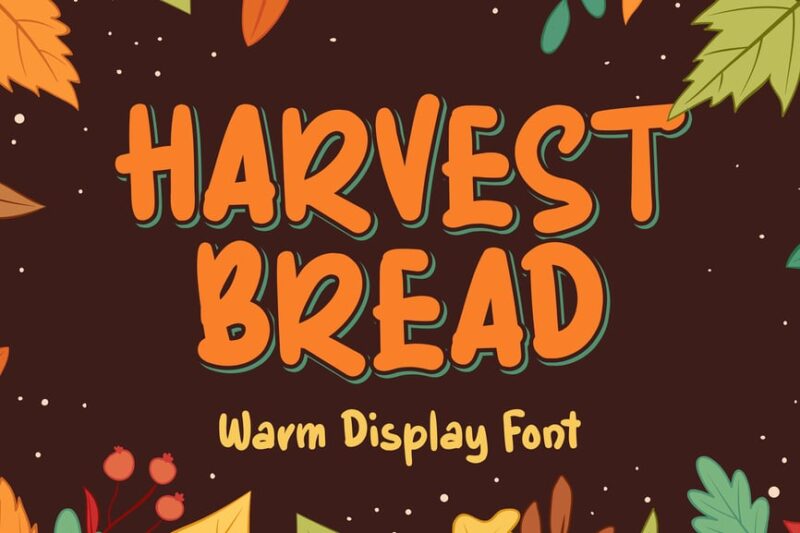
The leaves are turning, the air is crisp, and somewhere a turkey is nervously checking the calendar. Yes, Thanksgiving season is upon us! And while you’re busy planning the perfect feast and dodging questions about your love life from Aunt Martha, there’s another feast you should be preparing – a typographic one.
Thanksgiving fonts are the unsung heroes of autumn design. They’re the secret ingredient that transforms ordinary holiday marketing into something that makes people stop scrolling and start craving pumpkin pie. From rustic farmhouse vibes to elegant dinner party sophistication, the right Thanksgiving font can set the entire mood for your seasonal designs.
But here’s the thing – not all autumn fonts are created equal. Some scream “Halloween leftover” while others whisper “sophisticated harvest celebration.” The difference between amateur hour and professional polish often comes down to one crucial element: typography.
In this comprehensive guide, we’ll carve through the clutter to bring you the most delectable Thanksgiving fonts of 2026. Whether you’re designing restaurant menus, family reunion invitations, or branded marketing materials, these fonts will help you capture that perfect blend of warmth, gratitude, and seasonal charm.
So grab your favorite fall beverage (pumpkin spice latte, anyone?), and let’s dive into this cornucopia of Thanksgiving typography!
The Most “Thankful” Thanksgiving Fonts of 2026
Happy Thanksgiving Font
This festive Thanksgiving font combines script and handwritten styles, perfect for creating warm, inviting holiday designs. Its versatility makes it ideal for Thanksgiving cards, invitations, and social media graphics.
Joyful Turkey
Joyful Turkey is a playful display font that captures the spirit of Thanksgiving. This decorative typeface features fun, turkey-inspired characters that add a whimsical touch to holiday projects.
Hello Thankies
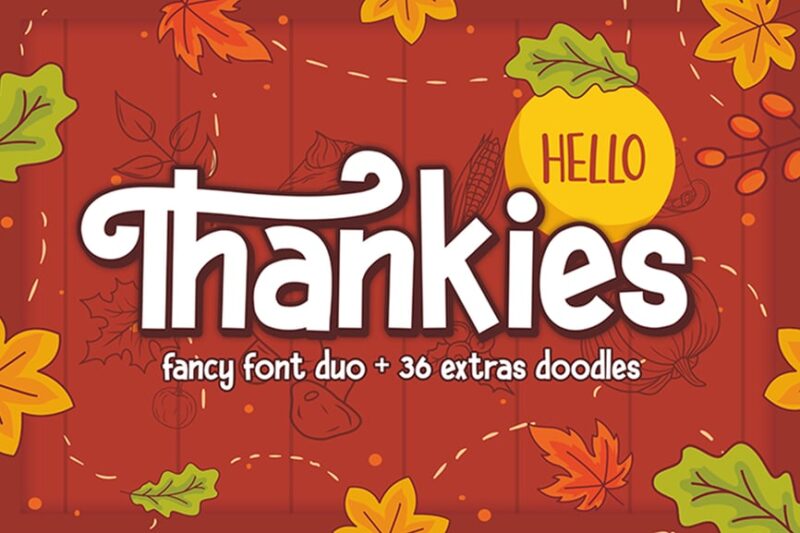
Hello Thankies is a charming decorative font that combines display and sans-serif elements. Its unique design makes it an excellent choice for Thanksgiving-themed headers, logos, and social media posts.
Thanks Gratitude
This Thanksgiving font blends script and handwritten styles with a college and typewriter aesthetic. Thanks Gratitude is perfect for creating heartfelt holiday messages and rustic Thanksgiving designs.
Thankful Sunday Font Duo
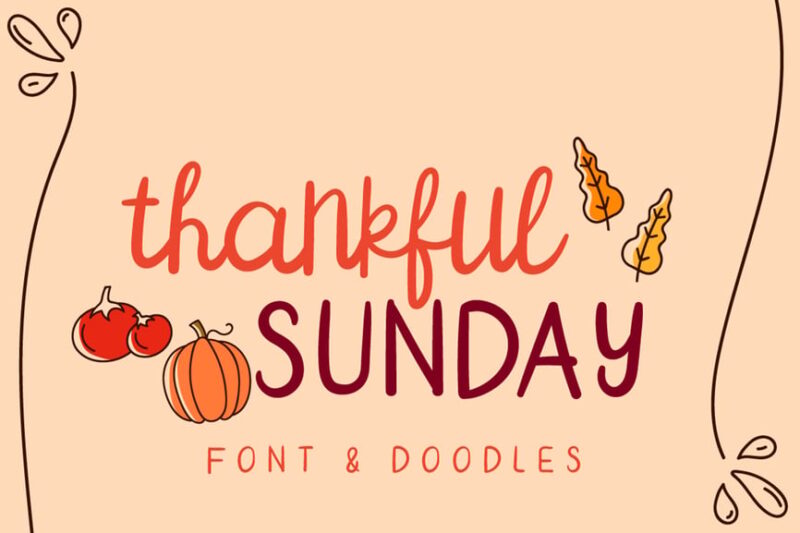
Thankful Sunday is a versatile font duo featuring script, handwritten, and decorative styles. This Thanksgiving-inspired typeface pair offers designers flexibility for creating cohesive holiday branding and graphics.
Gobbie Gobble
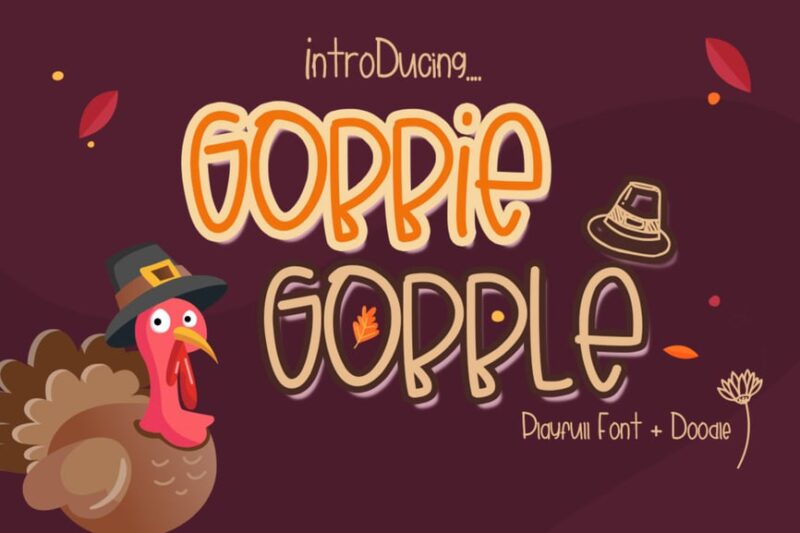
Gobbie Gobble is a playful font that combines script, handwritten, sans-serif, and decorative styles. This Thanksgiving-themed typeface is ideal for food-related designs and holiday logos.
Forever Grateful Font
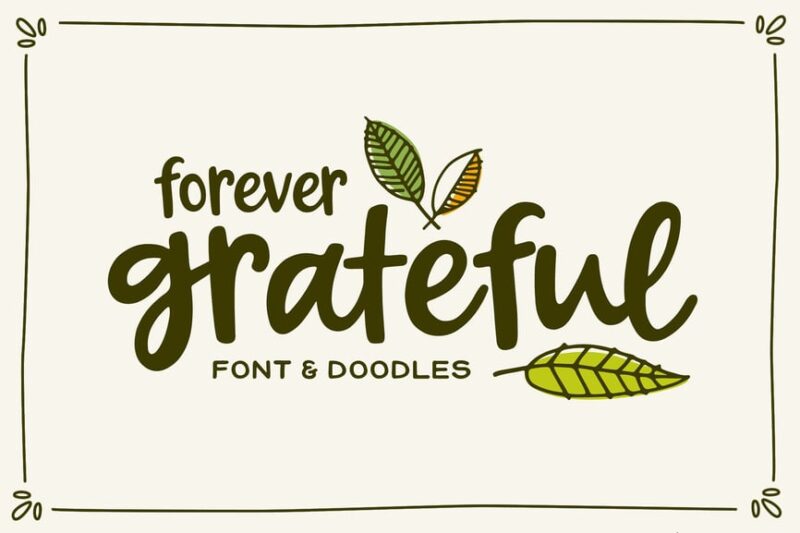
Forever Grateful is a beautiful script font with hand-drawn symbols, perfect for expressing gratitude during Thanksgiving. Its elegant design works well for fall-themed invitations and holiday cards.
Thanksgiving Font
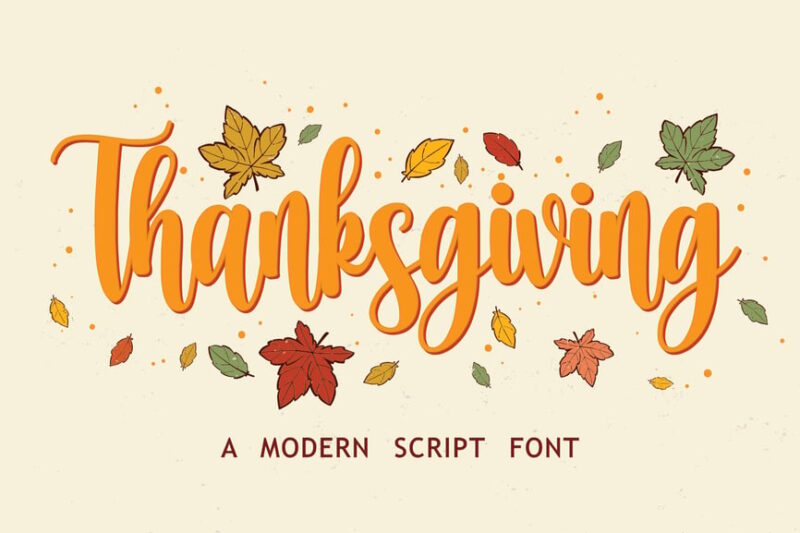
This versatile Thanksgiving font features script and handwritten styles suitable for both fall and Christmas designs. Its adaptability makes it a valuable addition to any holiday design toolkit.
Thanksgiving Joy
Thanksgiving Joy is a collection of fun, decorative fonts perfect for creating playful holiday designs. This assortment of Thanksgiving fonts offers variety for all your festive graphic needs.
Thanks Grateful
Thanks Grateful is a heartwarming Thanksgiving font featuring script and handwritten styles. This typeface is ideal for creating sincere thank-you notes and expressive holiday graphics.
Holiday Brother
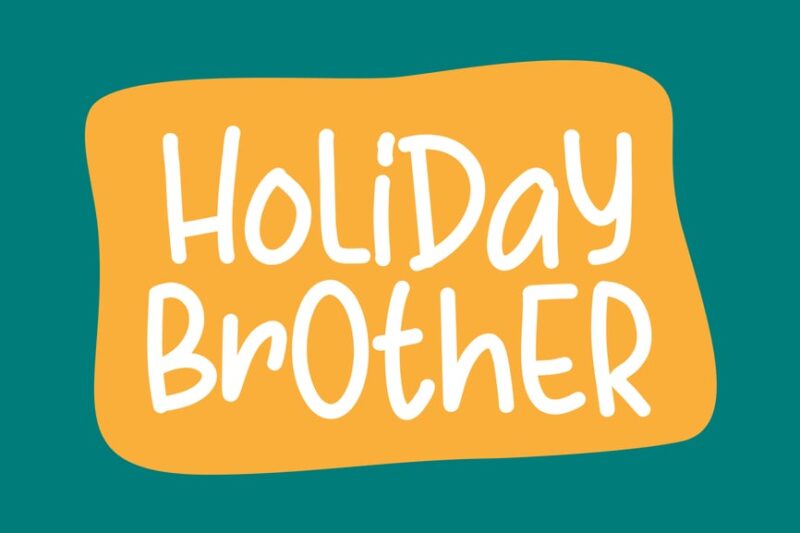
Holiday Brother is a handwritten display font perfect for Thanksgiving and other celebrations. Its versatile design makes it suitable for various holiday projects, including Thanksgiving invitations and anniversary cards.
Gratefully
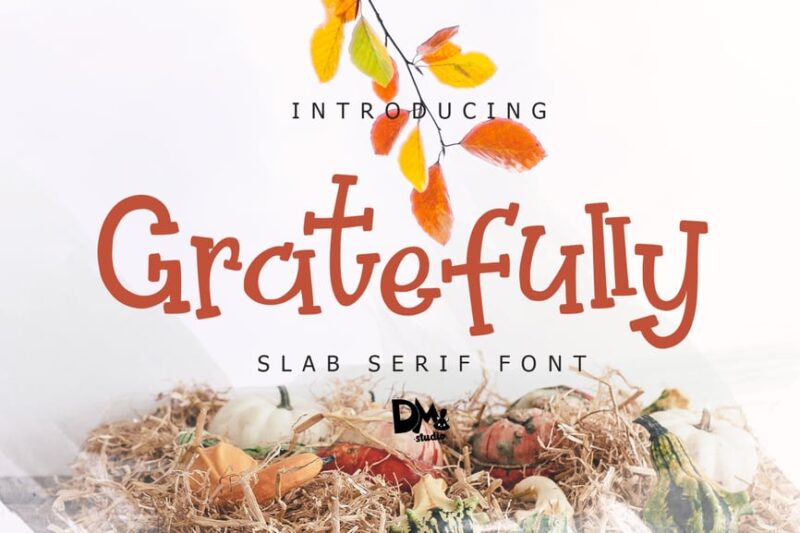
Gratefully is a bold slab serif font with script and handwritten elements, ideal for autumn-themed designs. This Thanksgiving-appropriate typeface adds a touch of warmth to holiday graphics and packaging.
Thanks Autumn
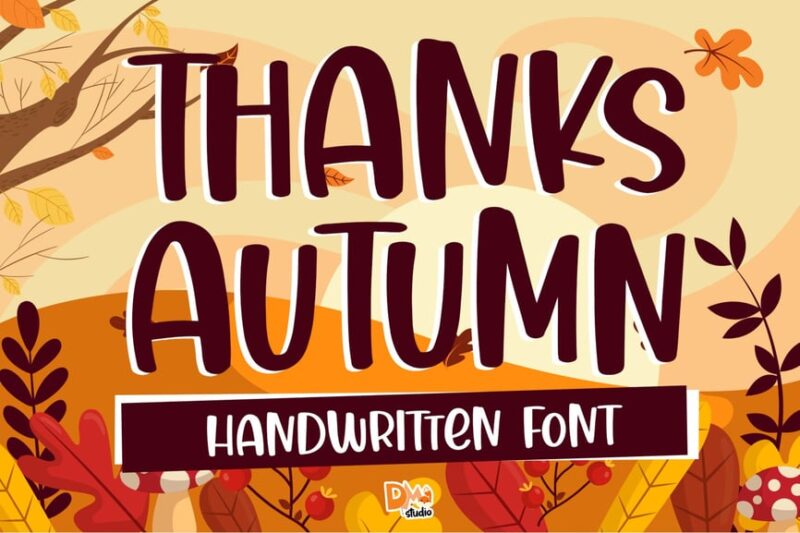
Thanks Autumn is a versatile font combining handwritten, sans-serif, and script styles. This autumn-inspired typeface is perfect for creating floral Thanksgiving designs and fall-themed branding.
Warm Autumn
Warm Autumn is a script font with handwritten elements and cool flourishes. This typeface captures the essence of fall, making it an excellent choice for Thanksgiving invitations and autumn-themed designs.
As you plan your autumn design projects, don’t just think about pumpkins and turkeys – think about the typography that will make your message resonate. After all, in a world full of digital noise, sometimes the most grateful thing we can do is choose fonts that remind people to slow down, appreciate the moment, and gather around something beautiful.